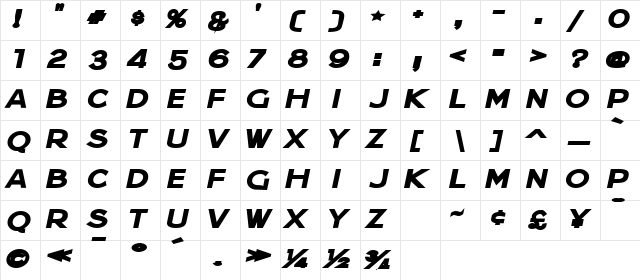
Jera Sans Heavy Italic JL Regular
| Foundry | Jeff's Fonts & Dingbats |
| Designer | Jeffrey N. Levine |
Design Context for Jera Sans Heavy Italic JL Typeface
Jera Sans Heavy Italic JL is a composed and adaptable typeface that performs quietly and consistently across a wide range of design contexts. The slanted form adds forward momentum and visual energy.